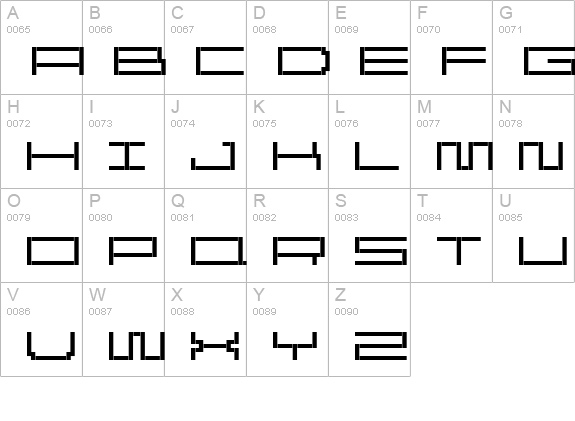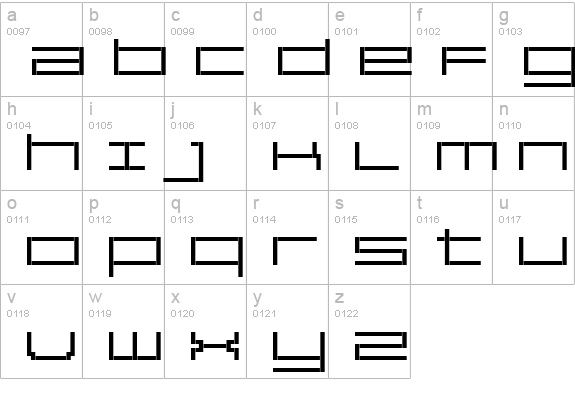
ReversionBroken SemiBold Font Details
ReversionBroken SemiBold is a sub-bold, structured variant in the ReversionBroken typeface family \xE2\x80\x94 well suited to sub-headlines and emphasised passages.
ReversionBroken SemiBold font is a unique and captivating typeface that is sure to make a bold statement in any design project. Its broken and distorted letterforms exude a sense of edginess and rebellion, perfect for adding a touch of urban flair to your designs. This font combines the strength of a semi-bold weight with a broken texture, resulting in a visually striking and dynamic appearance. Each character is meticulously crafted to create a sense of movement and energy, making it ideal for headlines, posters, and branding materials that demand attention. One of the most enticing aspects of ReversionBroken SemiBold font is that it is available for free. That's right, you can easily download this stunning font at FontsMarket.com without any cost. This means that you can add a touch of sophistication and creativity to your designs without breaking the bank. Whether you're a graphic designer looking to add a unique and eye-catching element to your portfolio, or a business owner wanting to create a memorable brand identity, ReversionBroken SemiBold font is the perfect choice. Its versatility and distinctiveness will ensure that your designs stand out from the crowd and leave a lasting impression. So, don't miss out on the opportunity to enhance your design projects with this extraordinary font. Visit FontsMarket.com today and discover the world of ReversionBroken SemiBold font - a striking and free typeface that will elevate your designs to new heights.